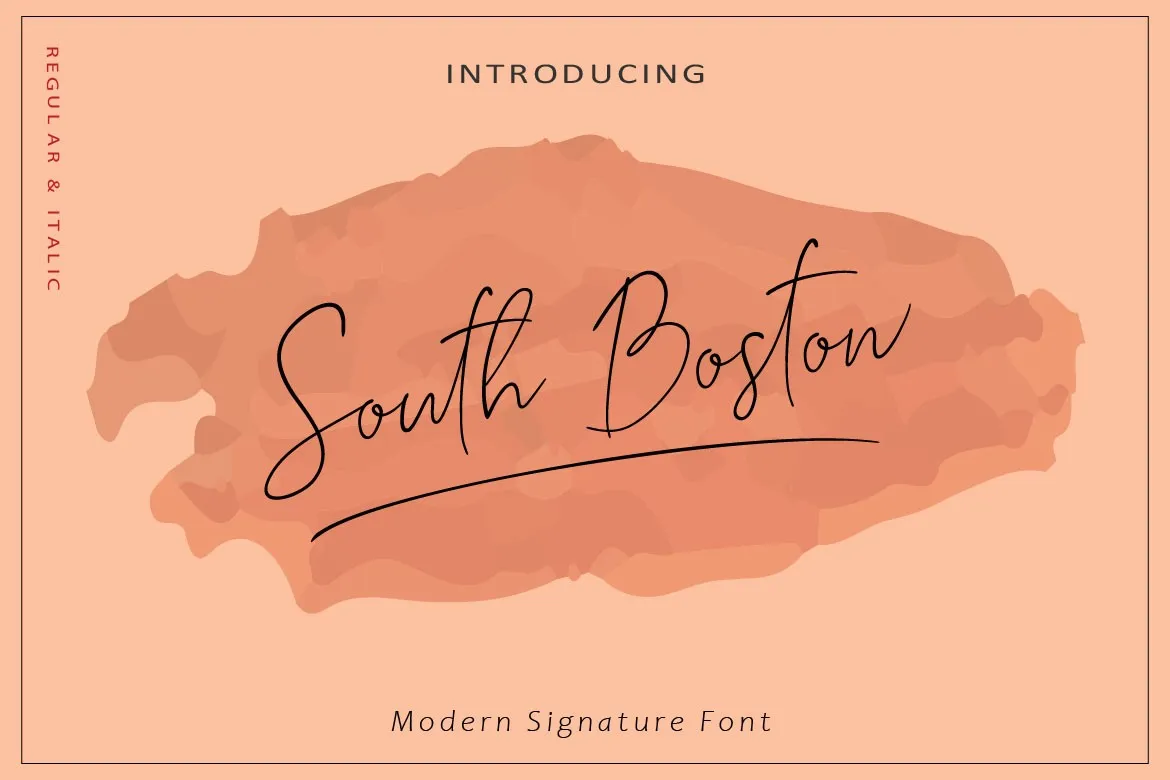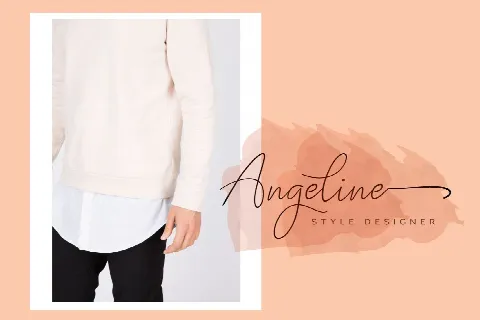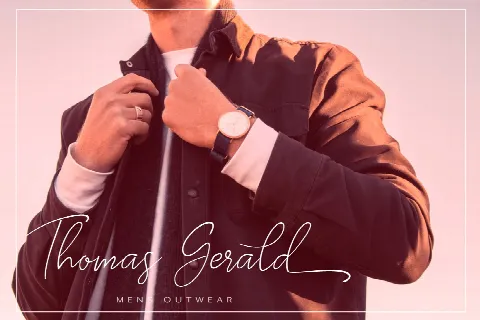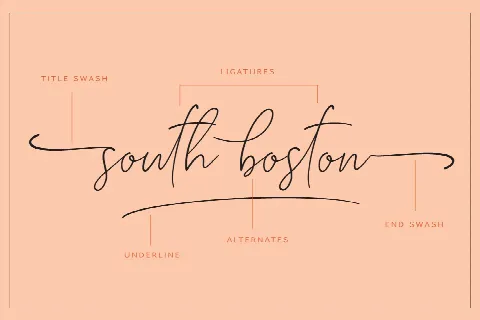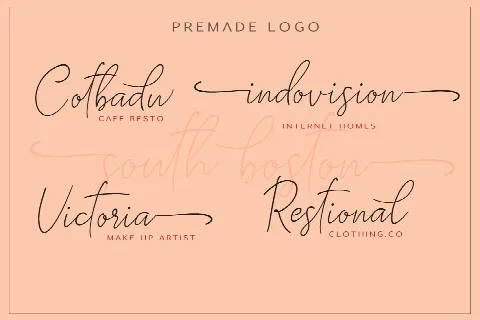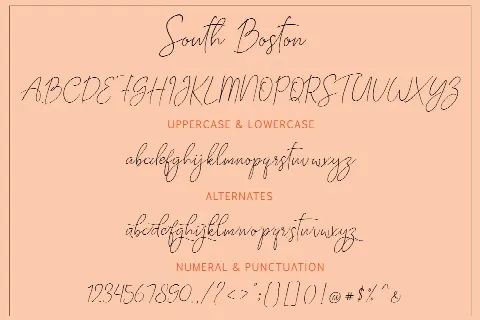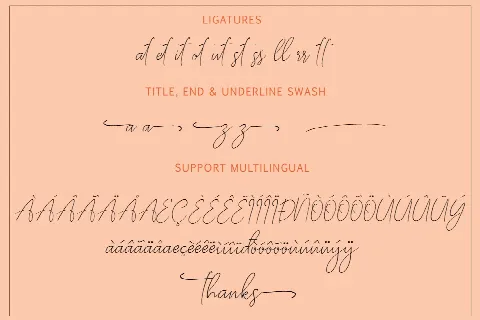
South Boston
We introduce our new product called SOUTH BOSTON.
South Boston is a realistic handwritten script with a dancing baseline stylish , realistic script style make this font looks natural, classy and perfect for any awesome project that need hand writing taste.
This is suitable for logos, watermarks on photography, signatures, branding, advertisement, quotes, invitations, stationery, wedding design,album covers, business cards, clothing, magazines, posters, and more!
The font comes with 2 Style Regular and Italic. You can mix and match for other situation. Many opentype features such as Alternates,Ligature,Title and Ending Swash, and also support multilingual. You can access all those alternate characters by using Opentype or Glyph program such as Adobe Illustrator cs,Adobe Photosop cc, Adobe InDesign, etc.